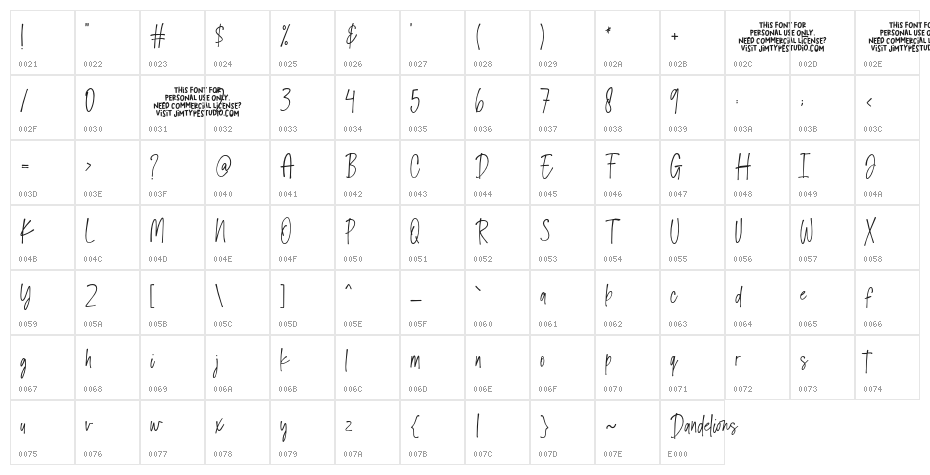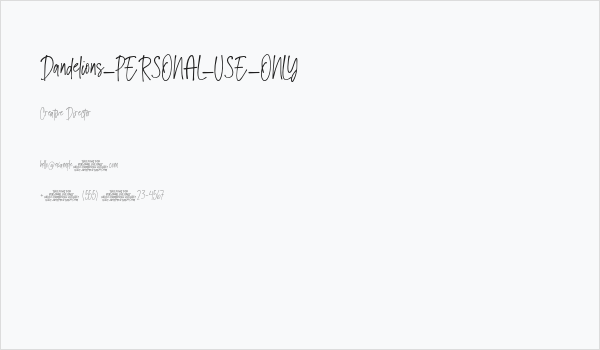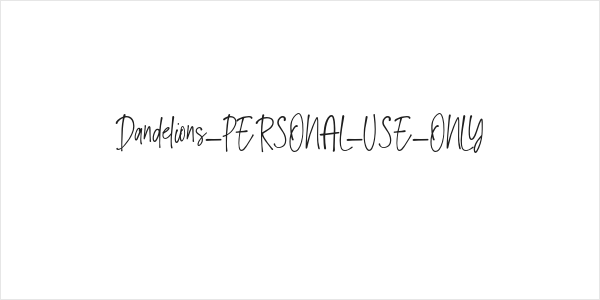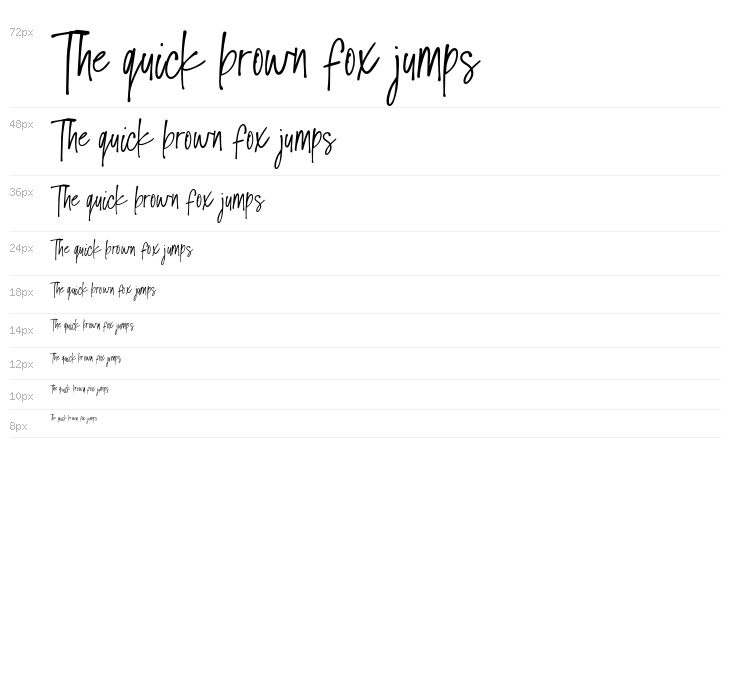
Dandelions_PERSONAL_USE_ONLY Font
Dandelions_PERSONAL_USE_ONLY Description
A playful, handwritten script with tall, narrow letters and a casual, organic flow. The strokes are consistent in thickness, giving it a friendly and approachable feel. The characters are slightly irregular, enhancing the handwritten effect.
| Overall Style | Casual, Playful, Handwritten |
| Use Case | Logos, Headlines, Quotes, Invitations |
| Proposed Projects | Greeting cards, invitations, social media graphics, personal branding, quotes. |